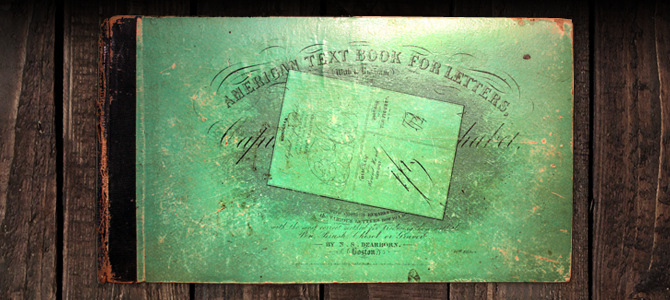
American Text Book For Letters - N.S. Dearborn - 1873
Dearborn's 1873 book is loaded with impressive alphabets, initials, embellished and decorated letters and flourishing. It's easily one of the better books of its time and a quite scarce rarity.